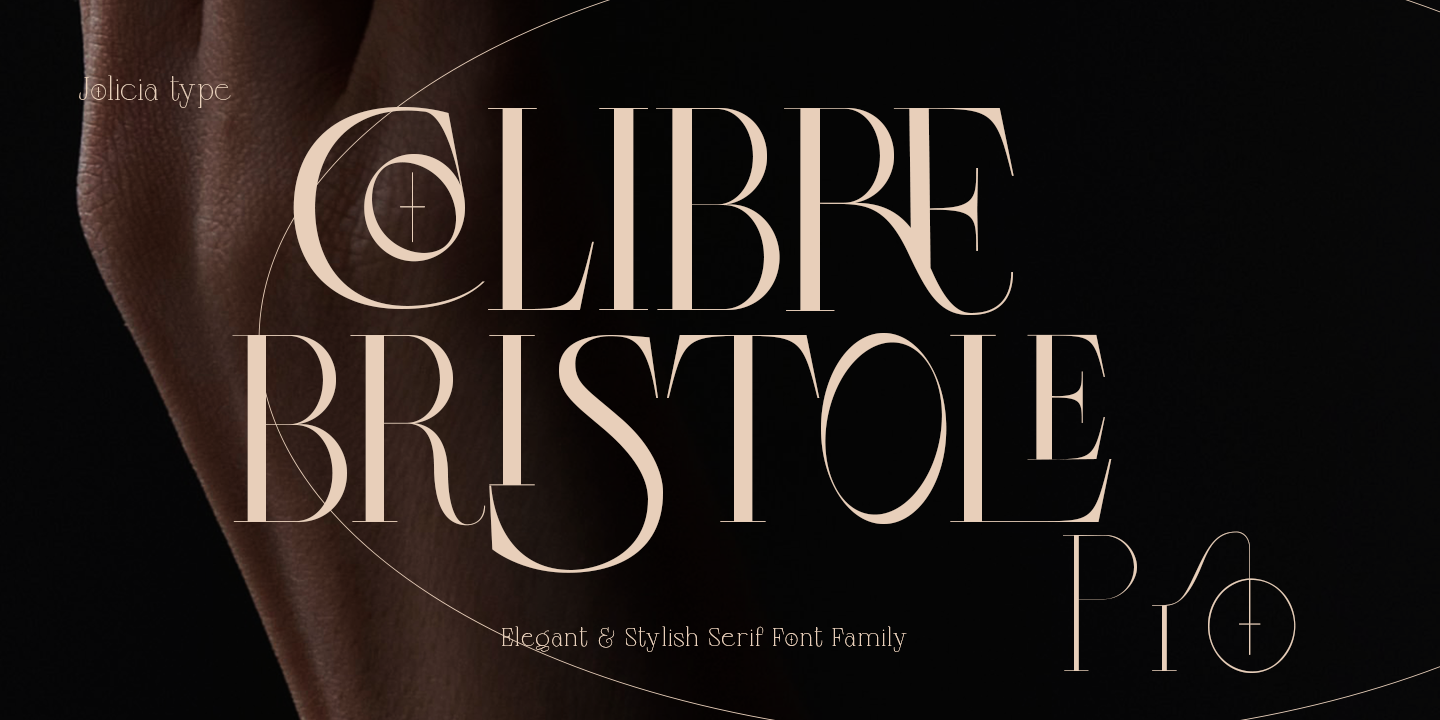
The Colibre Bristole Pro Font Free Download is ideal for logos, branding, posters, packaging, and editorial layouts, offering a sophisticated, modern serif aesthetic.
This font is exciting because its precision-crafted design with 49 ligatures blends elegance and interactivity, perfect for dynamic, high-impact typography.
The Colibre Bristole Pro family includes Thin, Extra Light, Light, Regular, Medium, Semi Bold, Bold, Extra Bold, and Black styles, ensuring versatile design options.
Elevate your projects with the Colibre Bristole Pro Font Free Download, a serif typeface designed by Laire Banyu, Dyaharum Pungki Revitasari, and published by Jolicia Type in 2021. Featuring nine weights from Thin to Black and 49 ligatures, Colibre Bristole Pro delivers a refined, interactive writing experience. Ideal for headlines, t-shirts, invitations, or signboards, it supports multilingual glyphs and is PUA-encoded for easy access to special characters. Available in OTF, TTF, and WOFF formats, it ensures crisp rendering across print and digital platforms. As 2025 design trends favor elegant, versatile typography, downloading Colibre Bristole Pro Font Free Download keeps your work sophisticated and modern. Test it today at fontspace com for personal use, and consider purchasing a commercial license at creativemarket.com for full access.